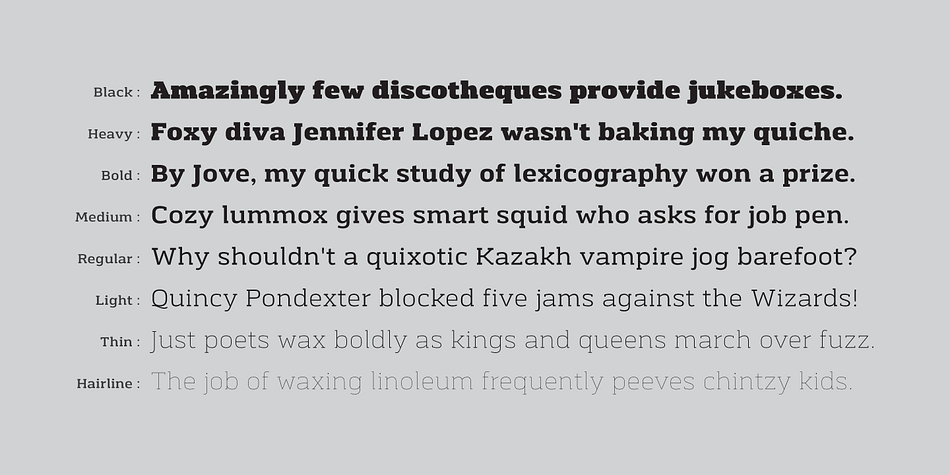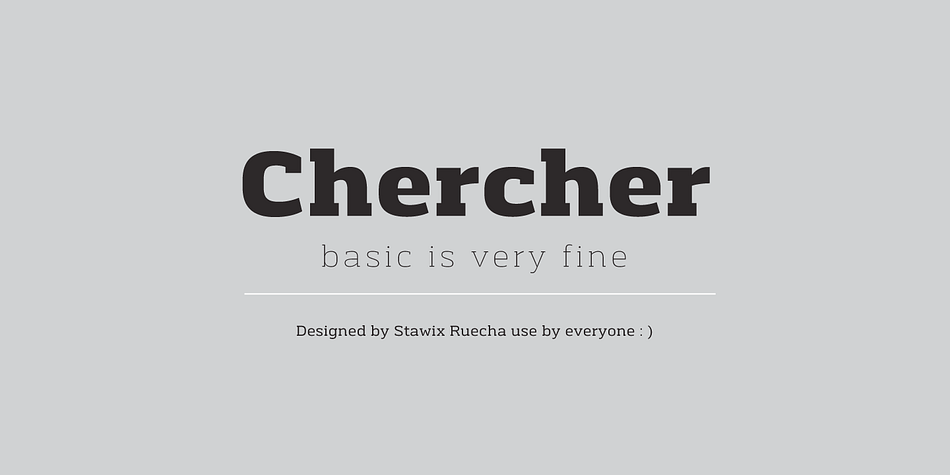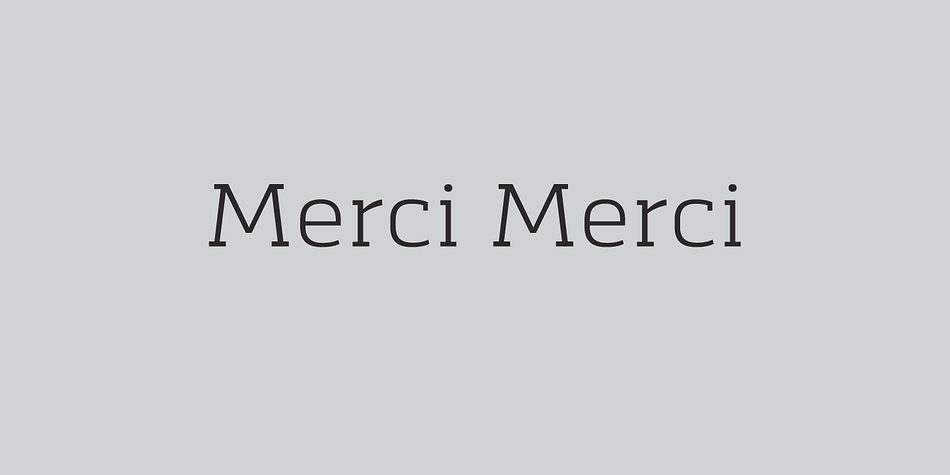
Chercher is a slab serif and western font family. This typeface has sixteen styles and was published by Stawix.
Chercher Slab Serif was designed by Stawix Ruecha. The design is neat, basic and simple. Chercher has 16 styles with 8 weights and supports for general use.